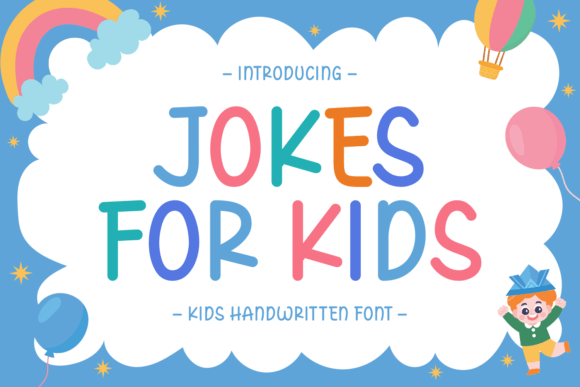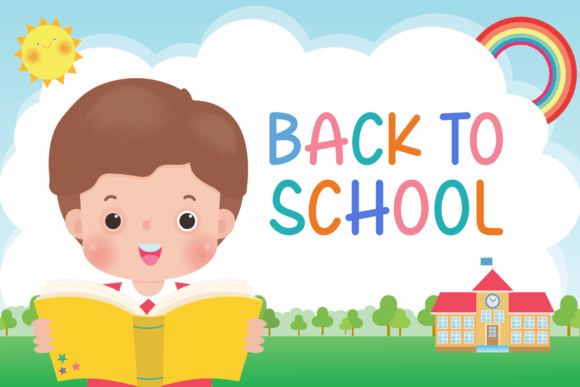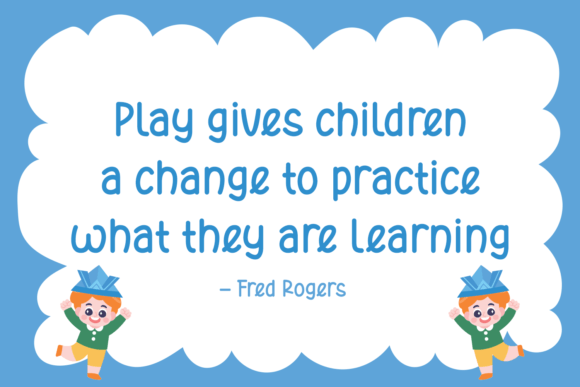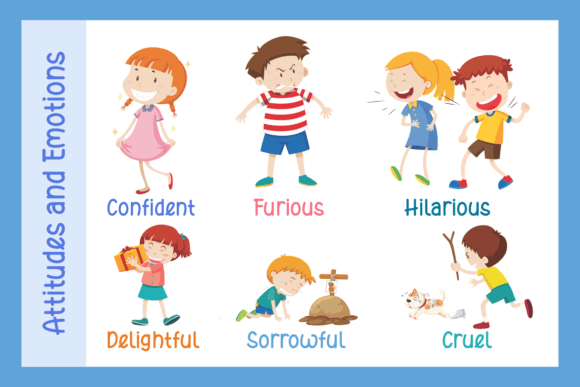
Jokes for Kids Font: A Playful Handwritten Font for DIY & Cricut Projects
About the Jokes for Kids Font
Step up your design game with Jokes for Kids Font, a font that exudes confidence and style. Introducing Jokes for Kids, a playful handwritten font designed just for kids! With its fun and friendly style, this font is perfect for adding a touch of whimsy to children’s books, posters, and more. Let your imagination run wild with Jokes for Kids as you create laughter-filled designs that will delight young readers everywhere.
Jokes for Kids excels in applications requiring a lighthearted and approachable feel, such as children’s book titles, playful posters, greeting cards, or branding for toys and children’s products. Its informal nature makes it unsuitable for body text or lengthy paragraphs, and it would be inappropriate for formal documents or serious branding.
Pair it with a clean sans-serif like Open Sans for a balanced contrast, or a friendly rounded serif like Playfair Display for a more classic feel. Avoid pairing it with overly geometric or stark fonts, which would clash with its playful energy.
The font’s core personality is undeniably playful and friendly, conveying a sense of fun and childlike wonder. Its informal style makes it ideal for projects targeting a young audience where approachability is key.